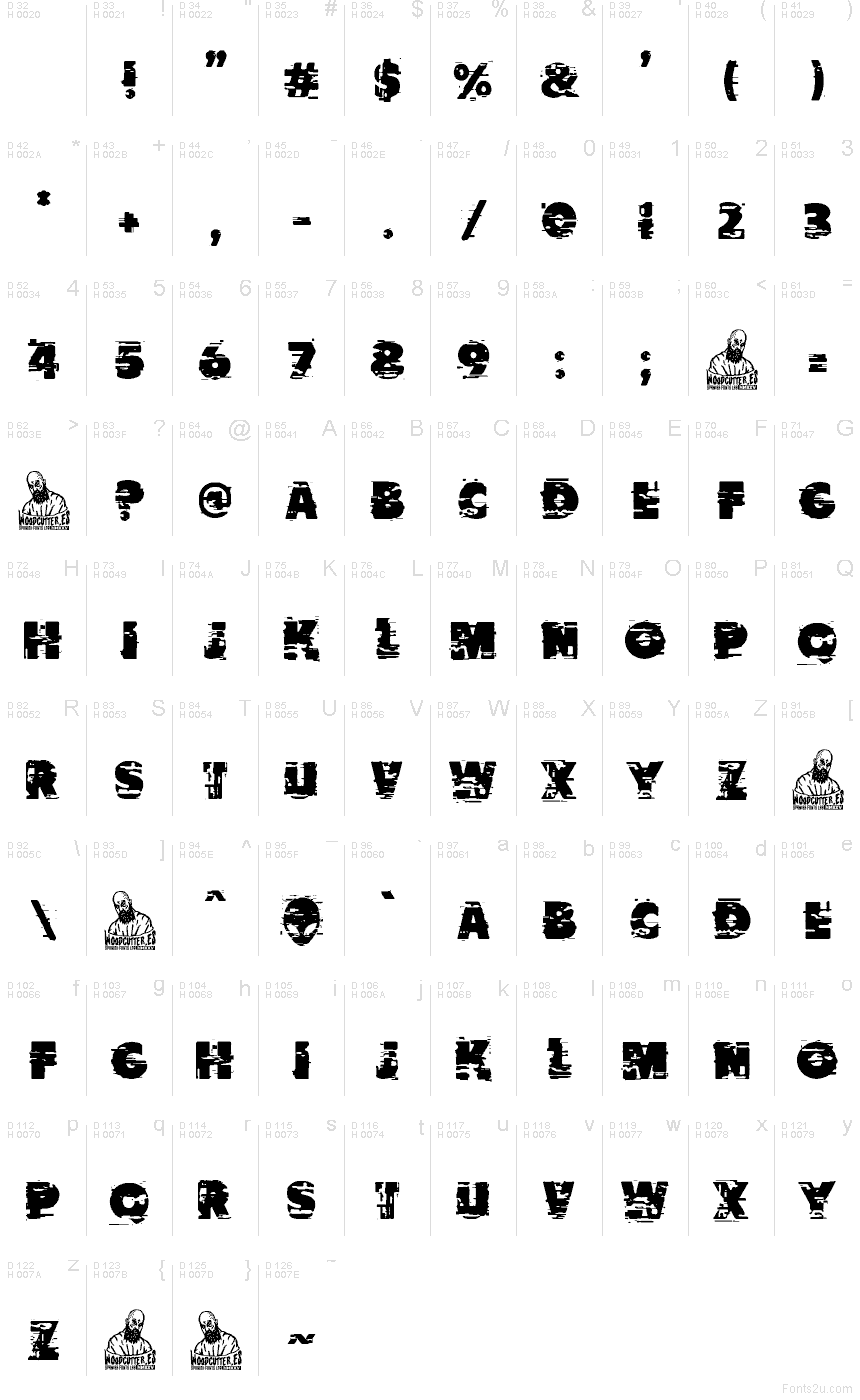
Destroy All Humans!
Destroy All Humans, by Woodcutter Manero, is a free distressed display font with a loud sci-fi B-movie streak. The caps look scraped, battered, and partly wiped away, with chunky shapes repeatedly broken by rough gaps and smear-like cuts that make the lettering feel urgent rather than orderly.
That makes it a natural fit for poster headlines, game branding, album covers, horror zines, and title cards where the words need a damaged, hostile mood. As a free font, it also works well for short cover lines or monograms, because the heavy silhouettes keep their punch even when the texture gets wild.